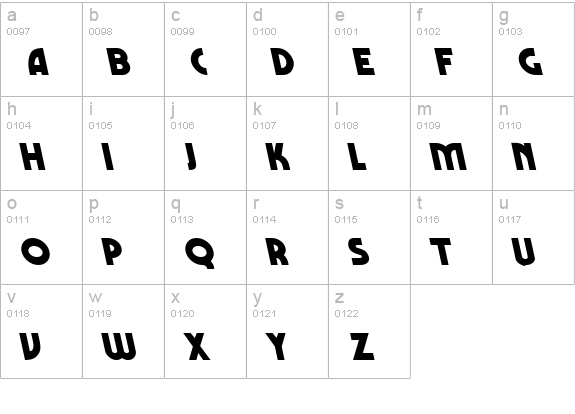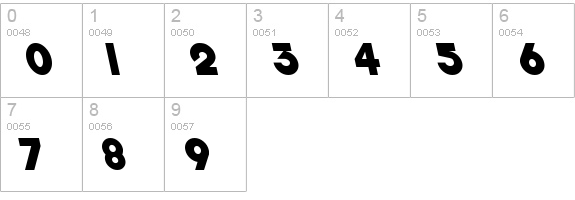
Backslide Bold Font Details
Backslide Bold is a strong, high-contrast variant in the Backslide typeface family \xE2\x80\x94 well suited to headlines, attention-grabbing titles, and strong calls-to-action.
Introducing Backslide Bold, a captivating and versatile font that effortlessly combines modernity with a touch of retro charm. This bold typeface brings a unique and dynamic energy to any design project, making it perfect for eye-catching headers, striking logos, or attention-grabbing titles. With its clean lines and strong presence, Backslide Bold commands attention and makes a lasting impression. Its carefully crafted letterforms showcase a balance between sharp edges and smooth curves, creating a harmonious aesthetic that is both bold and refined. But what sets Backslide Bold apart is that it is not only visually stunning, but also freely available to download at FontsMarket.com. Yes, you read it right - this remarkable font can be yours without any cost! Its accessibility allows designers, creatives, and typographers of all backgrounds to enjoy the quality and impact of Backslide Bold, without breaking the bank. Whether you're working on a personal project or a professional endeavor, Backslide Bold is the perfect choice for those seeking a font that stands out from the crowd. Its versatility knows no bounds, as it effortlessly complements a wide range of design styles, from sleek and modern to vintage and retro. So why wait? Don't miss out on the opportunity to elevate your designs with Backslide Bold. Download this exceptional font today at FontsMarket.com and let your creativity soar to new heights. With Backslide Bold in your toolkit, the possibilities are endless, and the best part is - it won't cost you a dime!